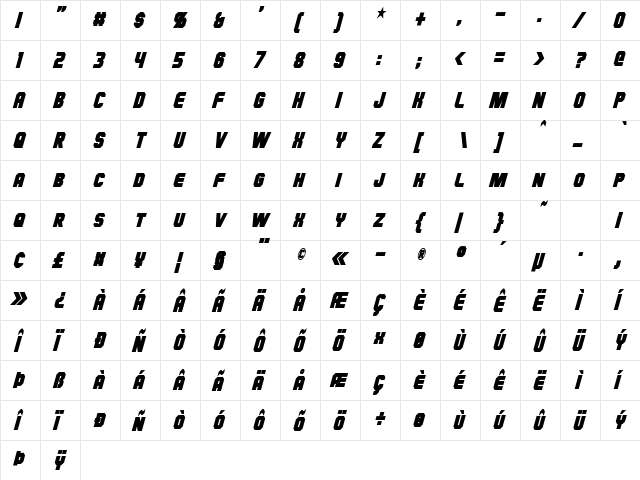
Hauser Condensed Bold Italic
Design Context for Hauser Condensed Typeface
Hauser Condensed takes a measured approach to typography — its balanced proportions and neutral character make it a reliable workhorse for both digital and print work. The dynamic lean of this cut emphasises speed and emphasis in any layout. Its bold stroke weight gives it real presence on the page. Its narrow stance lets it pack a punch even in space-constrained designs.
Pro Tip: Try Hauser Condensed for annotation and caption copy alongside an upright companion — the contrast in angle creates a dynamic but ordered typographic system.